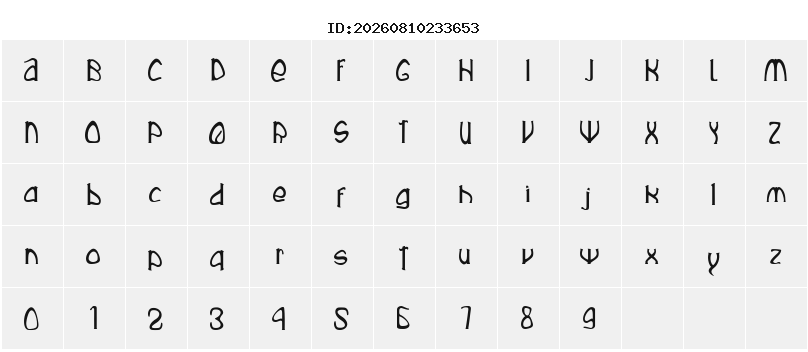
• Font Name: Rustika
• Designer: Alberto Villanueva
About Rustika.ttf
Rustika.ttf is a modern, elegant sans-serif font designed for ultimate readability and visual harmony. Perfect for branding, headlines, web design, and print materials.